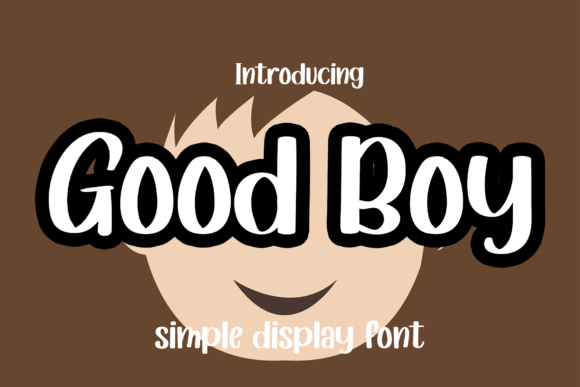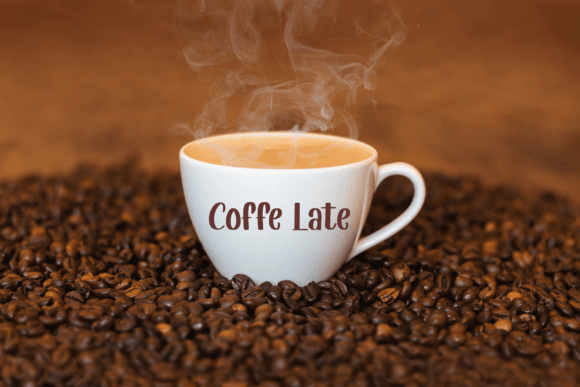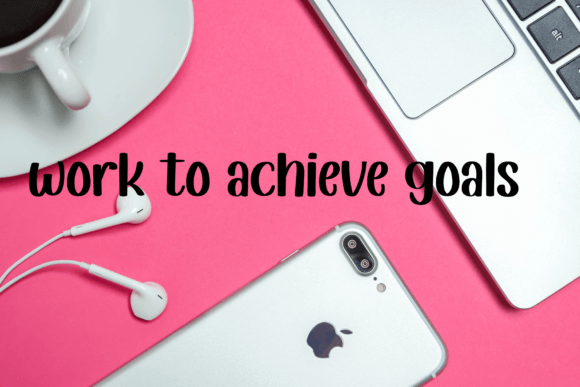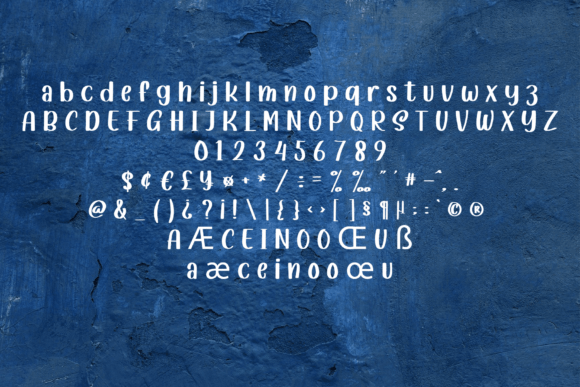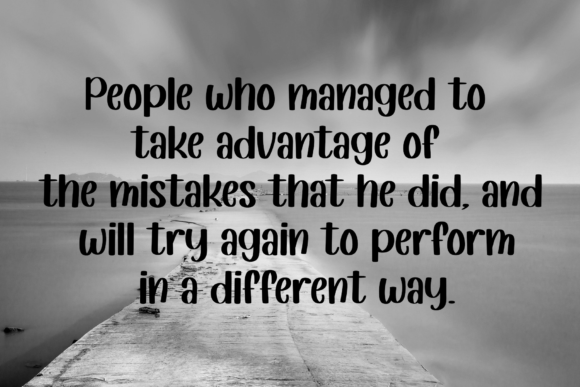
Good Boy Font
About Good Boy Font
“Good Boy” is a one-of-a-kind round-lettered handwritten font, meticulously crafted for use on titles, invitations, letters, and a variety of other creative products. With its unique design, this font adds a special touch to your text, making it a versatile and engaging choice for a range of design projects.
The round-lettered style of Good Boy imparts a distinctive and friendly aesthetic to your text, offering a playful and approachable vibe. Whether you’re creating attention-grabbing titles, personalized invitations, or heartfelt letters, this font is designed to enhance the visual appeal of your content.
By incorporating Good Boy into your creative projects, you can expect amazing and visually pleasing results. The careful craftsmanship behind this font ensures that it delivers the intended aesthetic, making it a reliable choice for achieving the desired impact in your design work.
In summary, Good Boy is more than just a font; it’s a carefully crafted tool that brings a unique and handwritten charm to your creative projects. Whether you’re working on titles, invitations, or other types of content, let Good Boy be the round-lettered font that adds character and personality to your designs, leaving you amazed at the fantastic results.